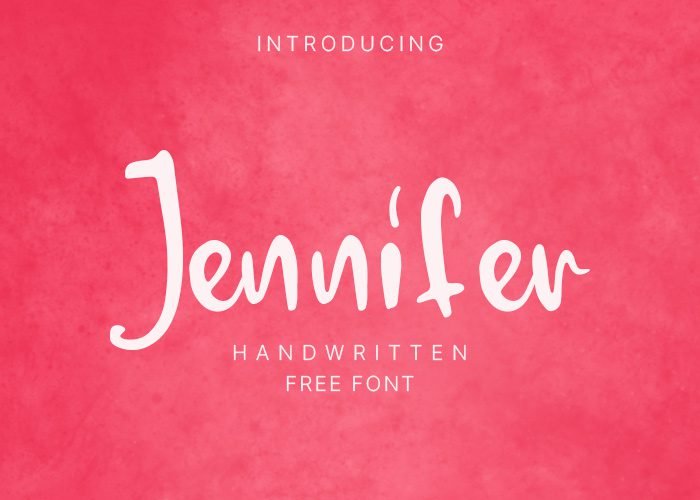
Jennifer Free Font
It’s time to give your designs a massive upgrade with our Jennifer Free Font!
With this font, you can create unique social media posters, thumbnails, print designs, and more.
Jennifer Font is an all-rounder font for multipurpose designs. You can add this font to different theme designs such as retro, summer, funky, hunk, grunge, urban, etc.